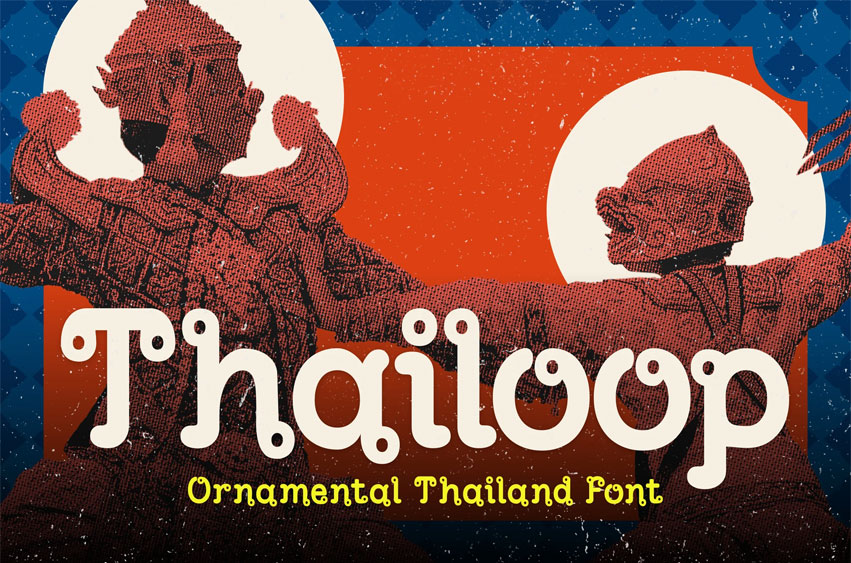
Thailoop Font
Thailoop Font Ornamental Thailand Font is a playful ornamental display font that celebrates the joyful spirit and cultural richness of Thailand. With its rounded edges, whimsical loop terminals, and retro influences, this font is ideal for vibrant tourism posters, Southeast Asian food packaging, festival tickets, and tropical branding.
The cheerful, handcrafted aesthetic evokes local flair and vintage charm, making it perfect for fun and eye-catching layouts. Whether you’re designing for a cultural event or a travel campaign, Thailoop brings personality and cultural authenticity to your visuals.
Relevance and Use Cases Thailoop is perfect for Thai cultural posters, Southeast Asian food branding, travel and tourism ads, cultural festival tickets, traditional dance flyers, vintage restaurant menus, street food signage, travel magazine covers, ethnic souvenir branding, tropical destination marketing, theme park signage, creative tourism brochures, Thai product labels, Bangkok souvenir shops.